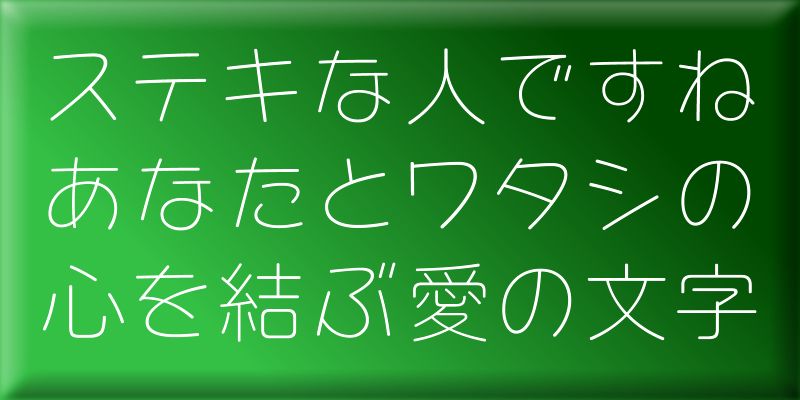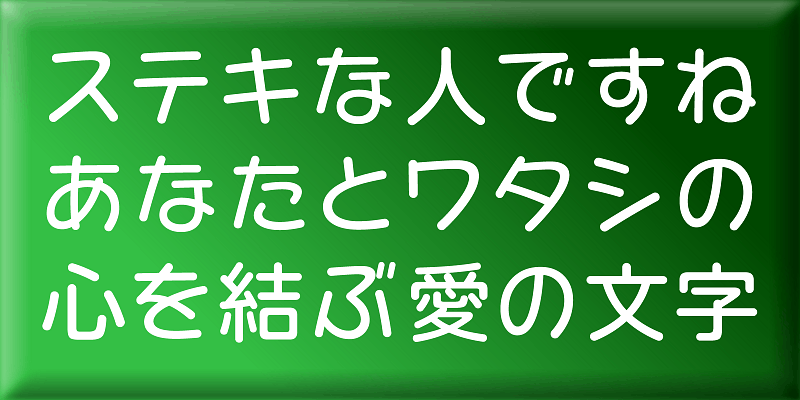
Capirera-1 combines “Cappy”, a kana subset popular with younger generations, with “Rera”, a simple rounded Gothic typeface.
The kana character design preferred by younger people together with the visually grounded ideographic design give any text an enjoyable and readable look.